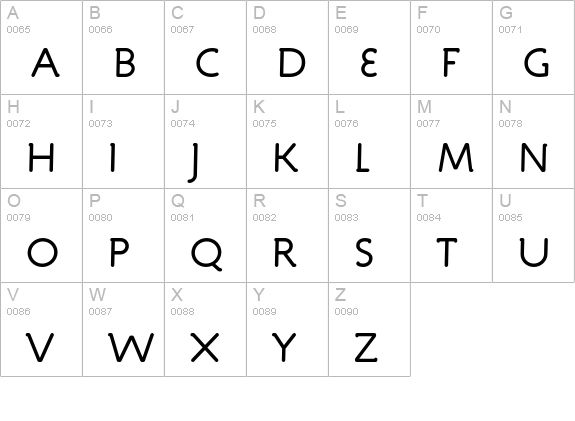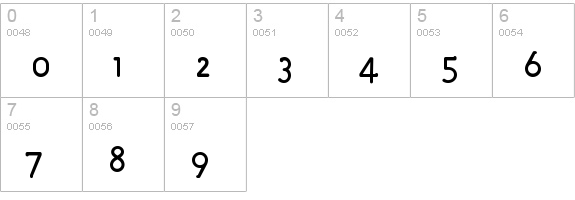
Engine-Regular is the standard, neutral variant in the Engine typeface family \xE2\x80\x94 well suited to general body text, paragraphs, and standard typographic work.
Engine-Regular is a versatile and modern font that brings a perfect blend of professionalism and style to any design project. With its clean lines and balanced proportions, this font is ideal for both digital and print applications. The clarity of Engine-Regular makes it easy to read while still retaining a touch of creativity. Whether you're creating a logo, website, or print materials, Engine-Regular will make your text stand out with its timeless appeal. The best part about Engine-Regular font is that it is available for free download at FontsMarket.com. This means you can easily access this high-quality font without any cost, making it a valuable addition to your font collection. Don't miss out on the opportunity to enhance your designs with Engine-Regular and elevate your typography game today!